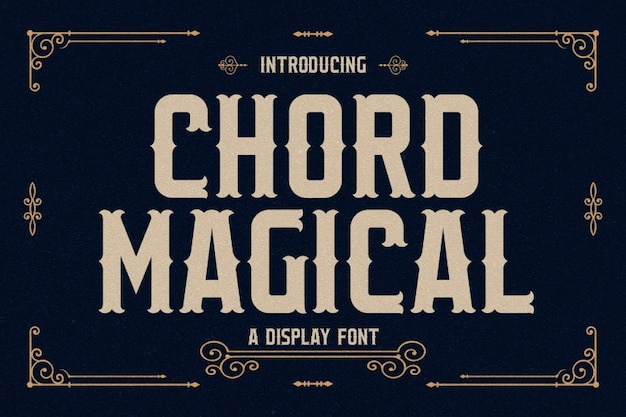
Chord Magical
Chord Magical Font
Letterna Studios
Chord Magical is a retro-inspired font that evokes the elegance of vintage whiskey labels. With its bold curves and ornate details, it brings a touch of old-world charm to any design. Perfect for branding, packaging, or posters, this font captures the essence of a bygone era, adding a timeless, magical feel to your projects.